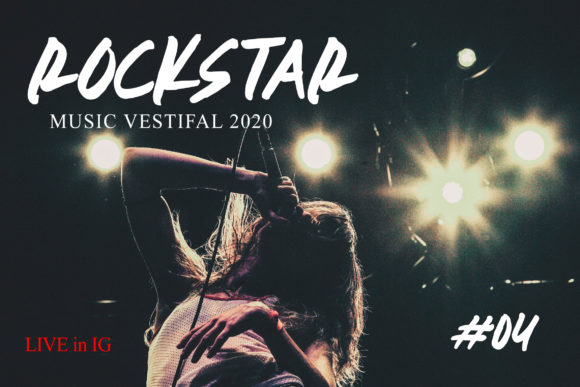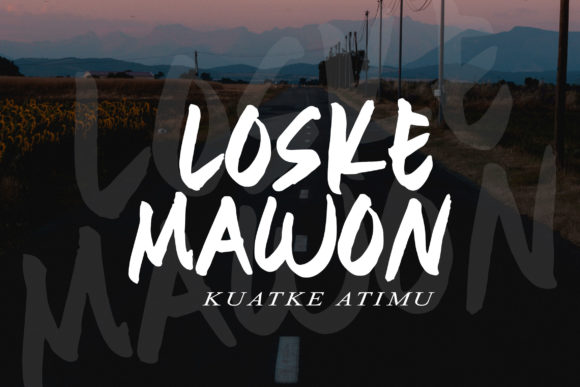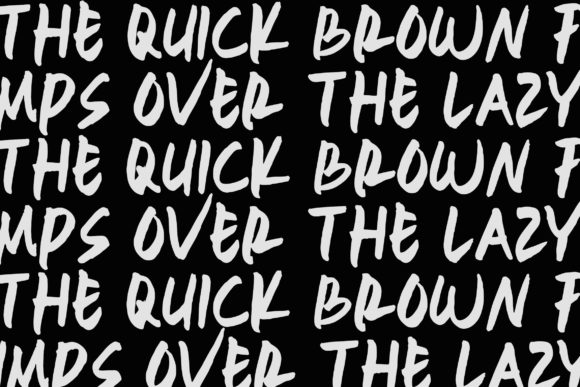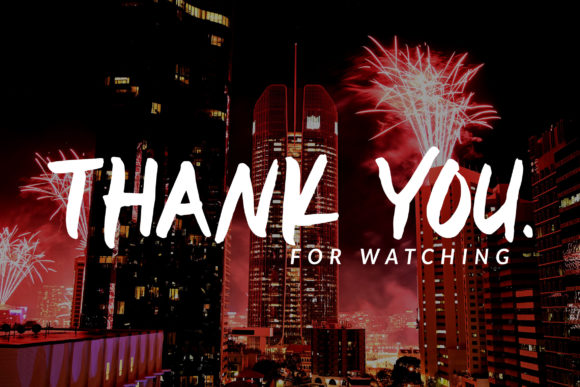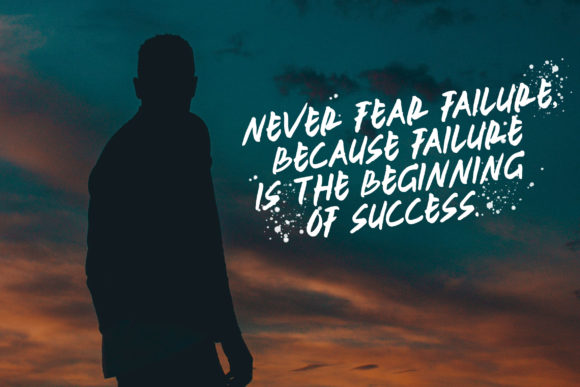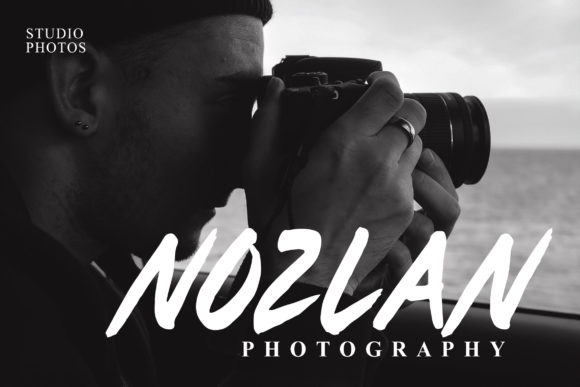
Introducing Aloska Font: The Ultimate Handwritten Font for Stunning Designs
Are you tired of using the same old fonts in your designs? Do you want to add a touch of personality and uniqueness to your creations? Look no further than Aloska Font, a simple and relaxed handwritten font that’s sure to capture your heart. Designed with the help of a unique and outstanding brush pen, Aloska Font is incredibly versatile and perfect for creating spectacular designs that stand out from the crowd.
The Story Behind Aloska Font
Aloska Font was created with the goal of bringing a fresh and modern take to the world of handwritten fonts. With its roots in traditional brush pen calligraphy, Aloska Font boasts a distinctive and charming style that’s both elegant and laid-back. The font’s creator used a one-of-a-kind brush pen to craft each letter, resulting in a truly unique and authentic look that’s sure to add a personal touch to any design.
What Makes Aloska Font So Special?
So, what sets Aloska Font apart from other handwritten fonts on the market? Here are just a few of its standout features:
- Unique and authentic style: Aloska Font’s brush pen origins give it a genuine, hand-crafted feel that’s hard to replicate with digital fonts.
- Versatile and adaptable: Whether you’re designing a logo, creating a social media graphic, or crafting a beautiful piece of art, Aloska Font is the perfect choice.
- Easy to read and understand: Despite its creative and artistic style, Aloska Font remains highly legible, making it perfect for use in a wide range of design applications.
- Perfect for designers and crafters: Aloska Font is a dream come true for designers and crafters looking to add a personal touch to their work.
| Font Name | Aloska Font |
| Author | Koplexs Studio |